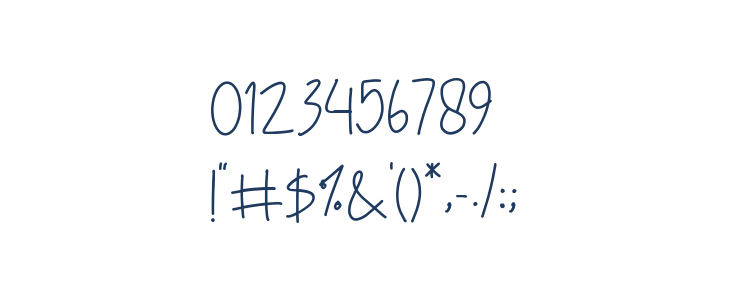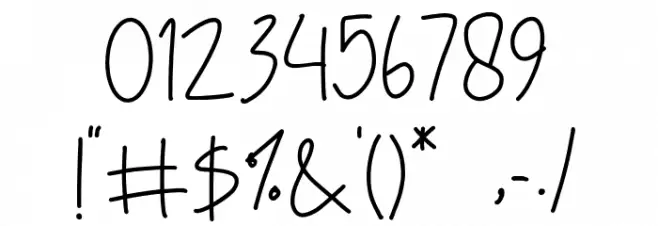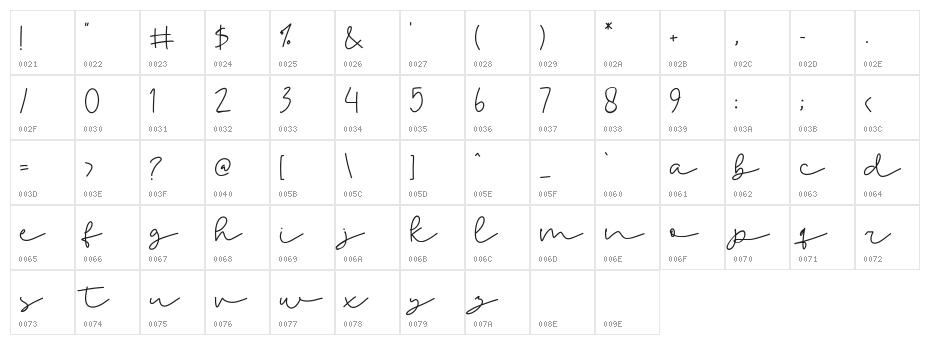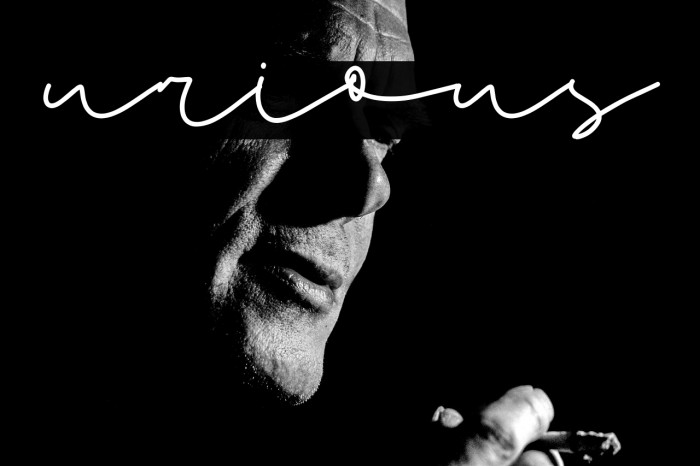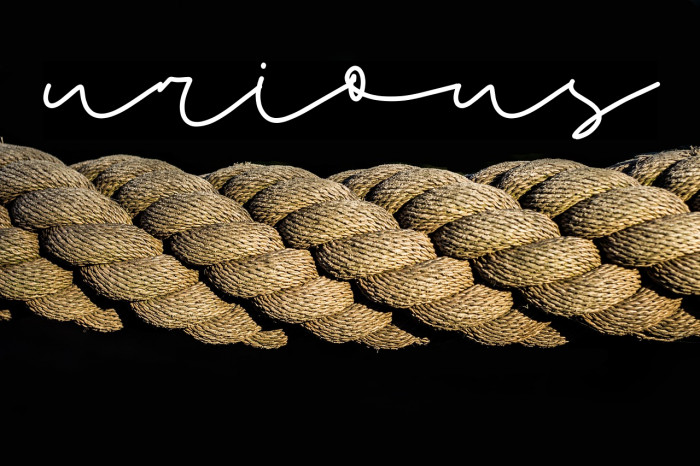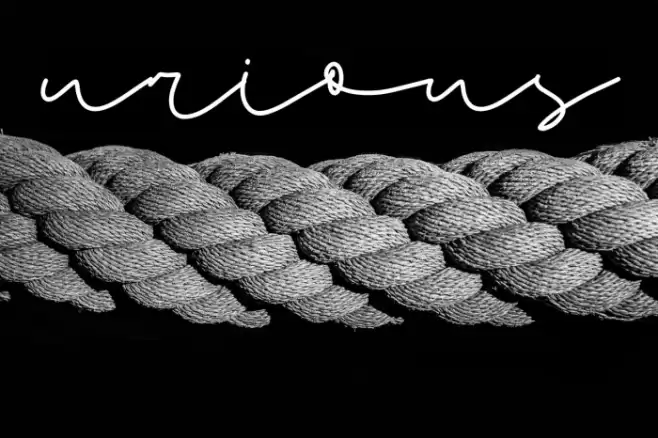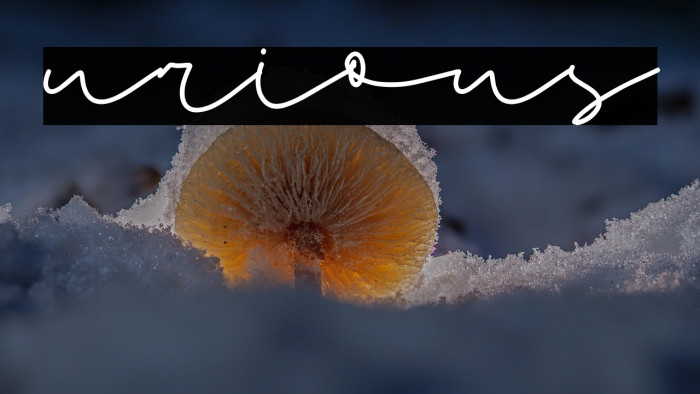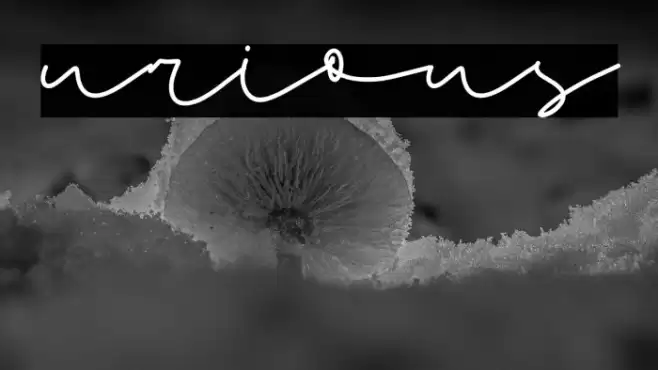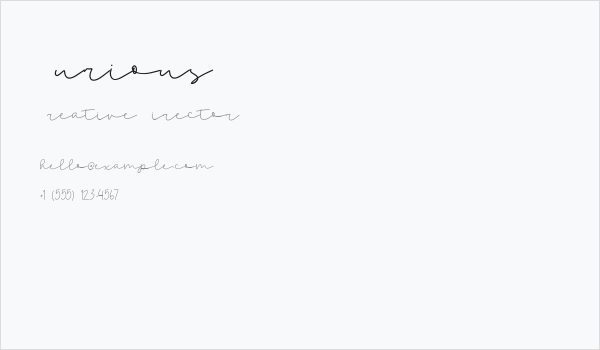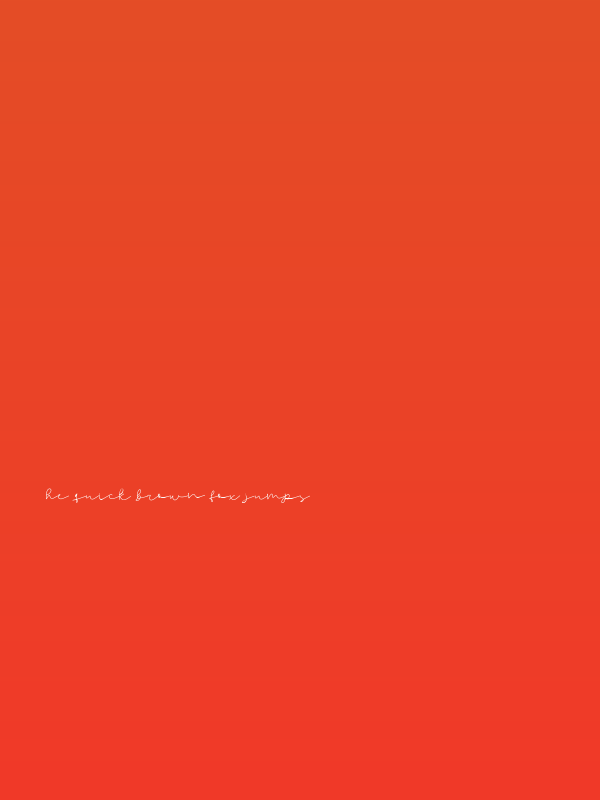
Curious Font
Curious Description
This font exudes a casual and playful handwritten style, characterized by its fluid and continuous strokes. The lowercase letters are connected, mimicking a natural cursive handwriting, while the uppercase letters are bold and distinct, providing a nice contrast. The numbers are clear and legible, maintaining the same playful aesthetic. Special characters are included, adding versatility to the font. The overall look is modern and approachable, making it suitable for a variety of creative projects.